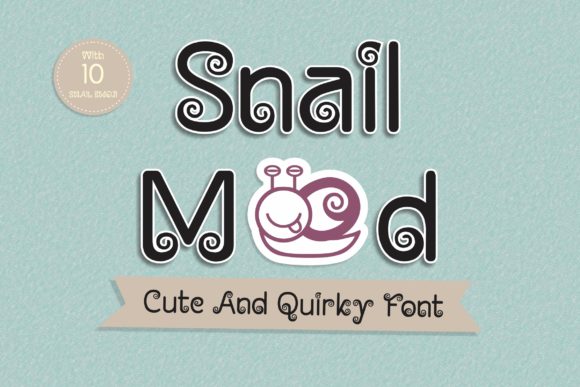
Embark on a whimsical adventure with Snail Mood Font, a display font family known for its irresistible charm and captivating character. Let your designs exude sheer delight and boundless creativity with each stroke of this font, meticulously crafted by Garapke Studio. A perfect match for myriad projects, Snail Mood Font shines brilliantly on LED displays, adding a dash of playfulness and vibrancy to your digital creations. Be it social media posts, eye-catching graphics, or captivating presentations, this font is your perfect companion, transforming ordinary designs into extraordinary masterpieces.
More than just a font, Snail Mood is an artistic expression that adds a touch of whimsy and boundless joy to every design it graces. Its elegant curves and playful twists make it the perfect choice for those seeking to create designs that stand out, designs that leave a lasting impression on the beholder. Unleash your imagination and let Snail Mood Font inject a healthy dose of cheerfulness into your projects, turning them into cheerful expressions of your creative genius.
But don't just take our word for it. Dive into the realm of creativity and experience firsthand the transformative power of Snail Mood Font. Adorn your designs with this enchanting font and witness how it effortlessly captivates audiences, leaving them enraptured by its unique charm. Be it playful posters, eye-catching advertisements, or simply adding a touch of magic to your everyday designs, Snail Mood Font is your go-to choice for creating designs that resonate with your audience.
So, why settle for ordinary when you can have extraordinary? Embrace the whimsical world of Snail Mood Font and elevate your designs to new heights of delight. Experience the joy of creating designs that radiate cheerfulness and leave an enduring impact on all who encounter them. Download Snail Mood Font today and embark on a creative journey filled with laughter, joy, and endless possibilities.